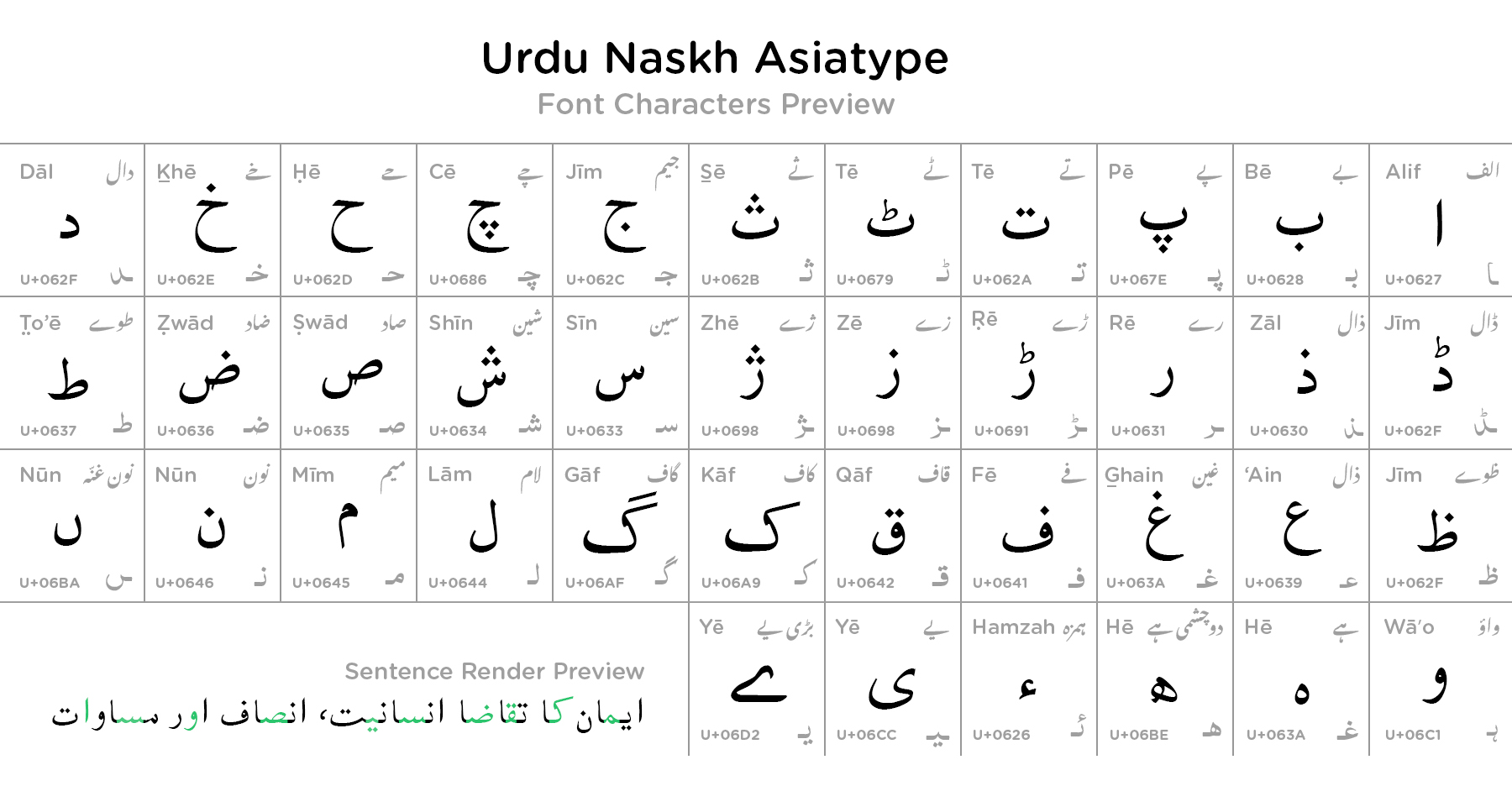
Urdu Naskh Asiatype is a bold and versatile Urdu font designed by Amanat Ali Goher and released on January 30, 2016. Inspired by Naskh’s script, this font features a plain overall look with refined horizontal emphasis. It offers a diverse range of characters, symbols, and glyphs, making it suitable for various design needs. With 546 characters and 306 glyphs, this font offers versatility and usability. It is the identical twin font of its counterpart, Udru Naskh Unicode, in appearance with the same look and feel. The only difference comes in the availability of a number of characters, symbols, and glyph count. This Urdu font is more diverse than its sister typeface in use. This font finds its appeals to graphic designers to fulfill their various design needs. It is not only used as a literary or editorial font but can also be utilized in mobile applications or websites to make an appealing yet clear, user-friendly interface, as it provides enough room for design tweaking due to its massive compatibility.